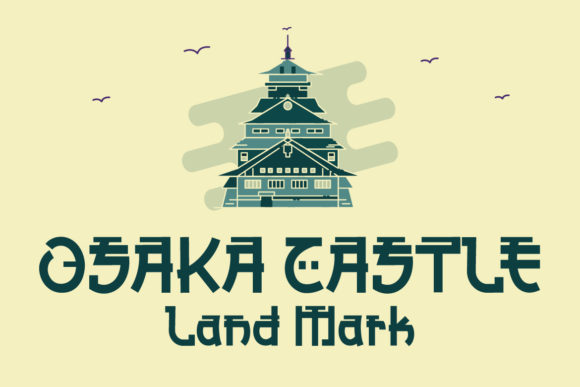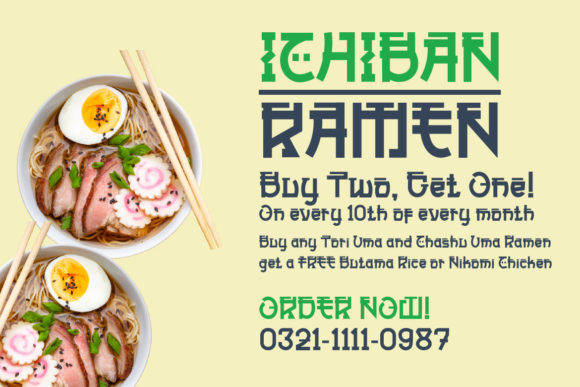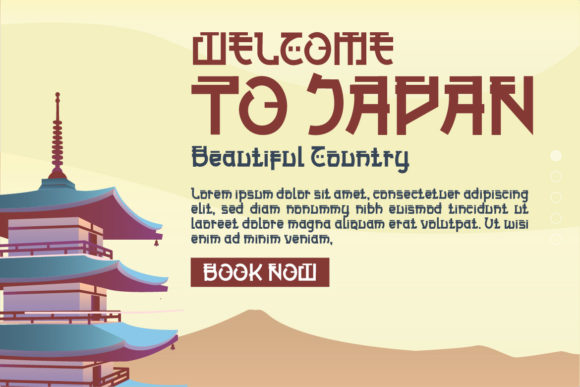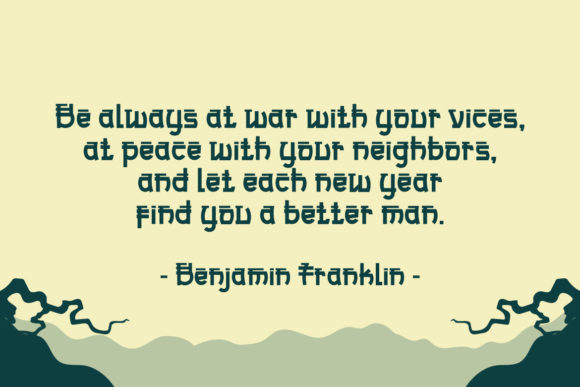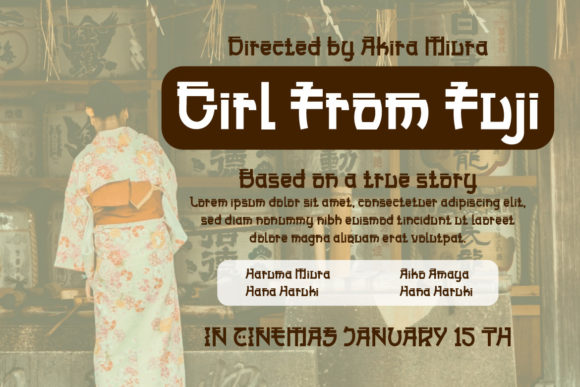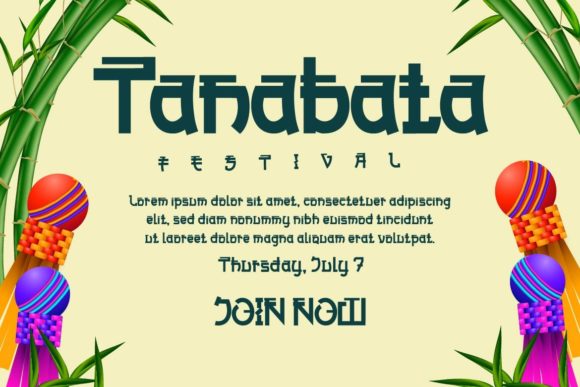
Creating a Visual Impact: The Power of Bamida Faux Japanese Font
Have you ever been working on a project, pouring your heart and soul into it, only to feel like something is missing? A spark of creativity, a dash of uniqueness, a pinch of elegance? That’s where Bamida Faux Japanese Font comes in – a stunning display font that adds a touch of sophistication to your designs.
Designed to evoke the natural beauty of Japanese typography, Bamida Faux Japanese Font is a game-changer for designers. Its unique blend of simplicity and complexity makes it perfect for a wide range of projects, from logotypes and branding to posters and book titles. With Bamida Faux Japanese Font, you can create a visual impact that’s both striking and memorable, drawing your audience in and leaving a lasting impression.
Bamida Faux Japanese Font Key Features
- Character Set: The font includes a wide range of characters, including Japanese Hiragana, Katakana, and Kanji, as well as Latin characters, making it suitable for a variety of applications.
- Unique Characteristics: The font is designed to mimic the look and feel of traditional Japanese fonts, with subtle nuances and flair that set it apart from other faux Japanese fonts.
- Font Width and Height: The font has a relatively wide width and height, making it suitable for use in headings and titles where a bold, statement-making font is desired.
Bamida Faux Japanese Font Review
I recently had the chance to work with the Bamida Faux Japanese Font, and I must say, it’s an interesting choice for designers looking to add a touch of Japanese flair to their projects. Here’s my honest review:
- Unique aesthetic – The font’s design is certainly eye-catching and can add a distinctive touch to your designs.
- Flexibility – It comes in various weights and styles, making it suitable for a range of applications.
- Lack of authenticity – As the name suggests, this font is a faux representation of Japanese script, which might not be suitable for projects requiring genuine Japanese typography.
- Not ideal for text-heavy content – Due to its ornate design, the font can be difficult to read in large blocks of text.
Overall, I think the Bamida Faux Japanese Font is a great choice for designers looking to add a touch of Japanese-inspired flair to their projects, but it’s not suitable for projects requiring authentic Japanese typography. With careful use, it can be a great addition to your design toolkit.
Bamida Faux Japanese Font is ideal for creating mock Japanese designs, promotional materials, and cultural events. To get the most out of it, experiment with different font sizes, colors, and combinations to achieve a unique look.